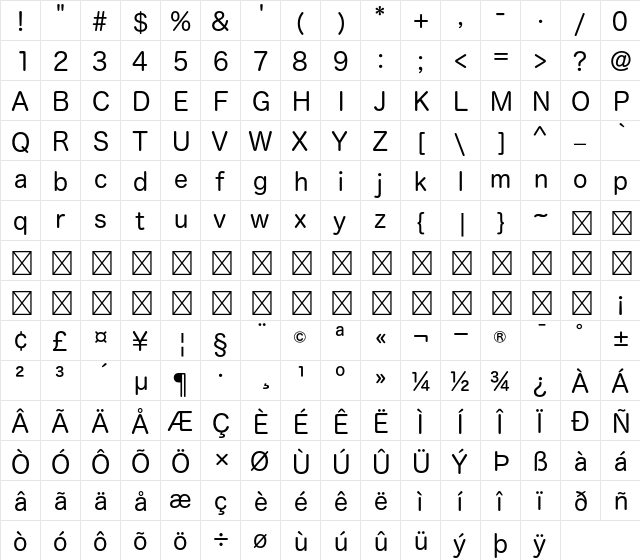
Hiragino Maru Gothic Pro W4
| Foundry | Dainippon Screen Mfg. Co., Ltd. |
| Designer | JIYUKOBO Ltd. |
Design Context for Hiragino Maru Gothic Pro Typeface
Hiragino Maru Gothic Pro takes a clean, functional approach — its unadorned letterforms prioritise legibility and work reliably across screen and print environments.
Font Pairing: Works well alongside a characterful serif or display font that can carry the expressive load while Hiragino Maru Gothic Pro handles the functional copy.
Pro Tip: Use Hiragino Maru Gothic Pro for UI labels, navigation, and short-form body copy where clean legibility is the priority.